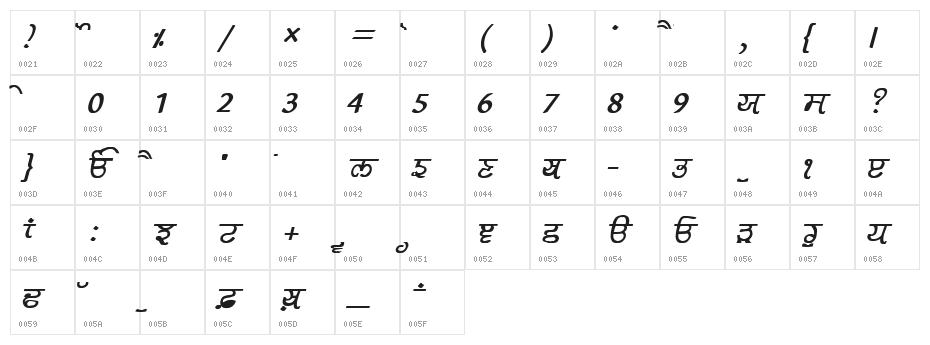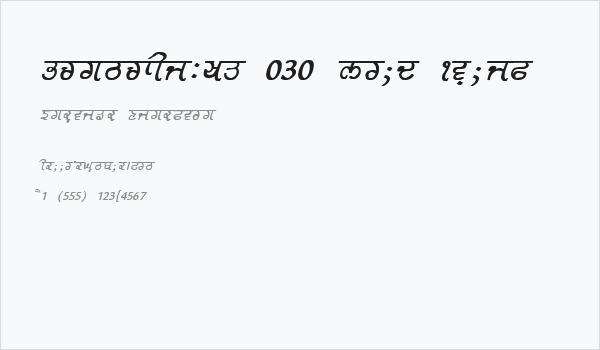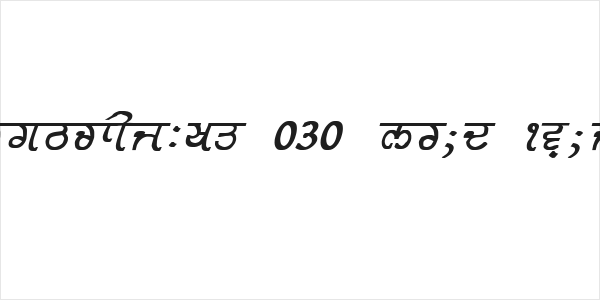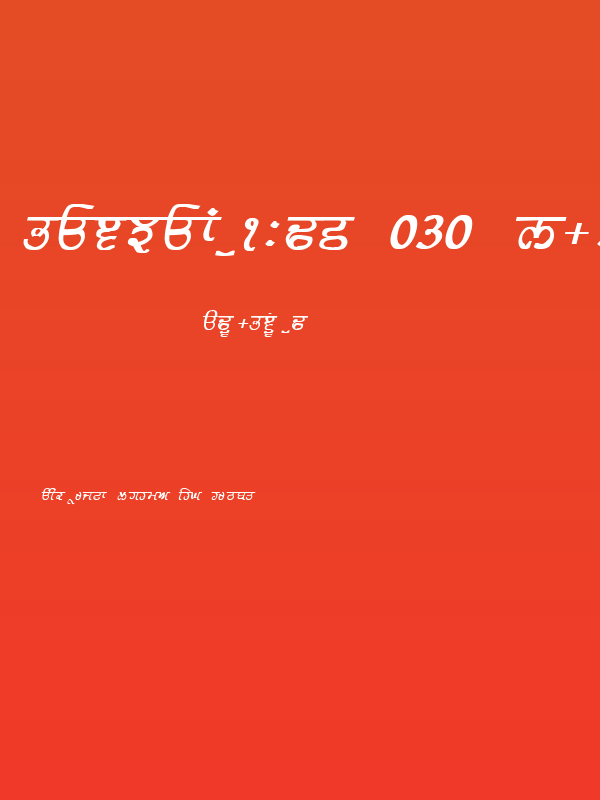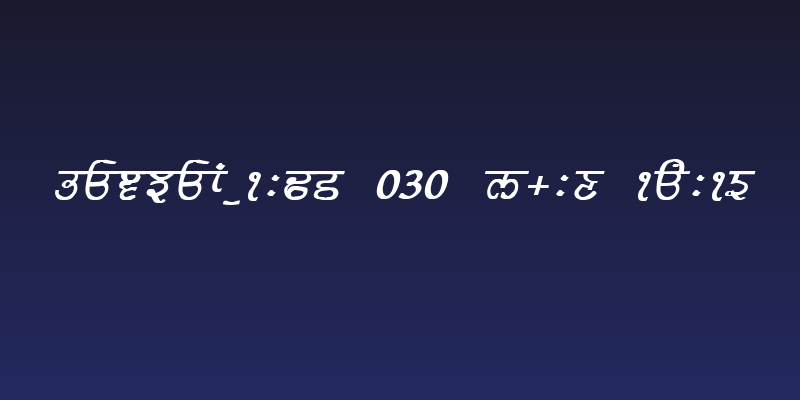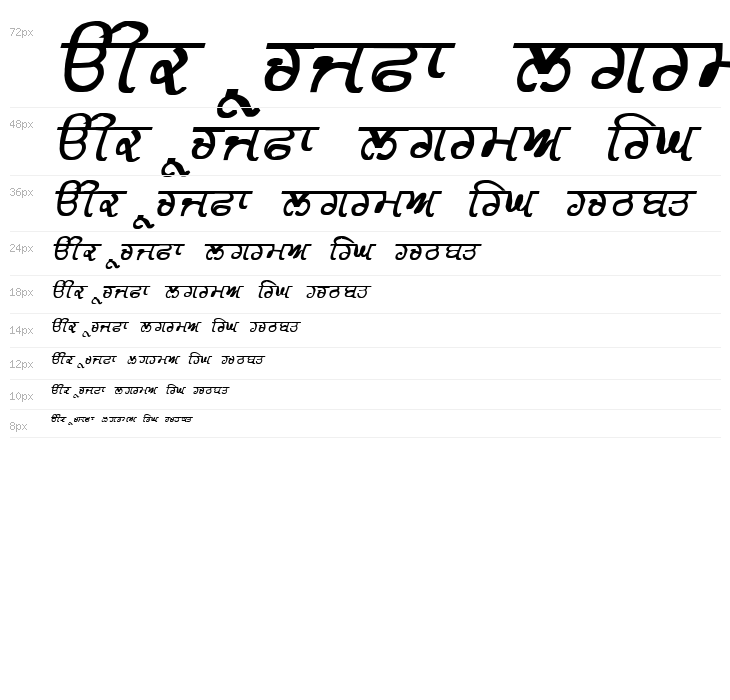
GurmukhiLys 030 Bold Italic Font
GurmukhiLys 030 Bold Italic Description
This font features a bold and italicized style with a distinct calligraphic flair, characteristic of the Gurmukhi script. The strokes are thick and expressive, providing a strong visual impact. The characters are well-defined, with a slight slant that adds a dynamic and elegant touch. The numerals and special characters maintain the same boldness, ensuring consistency across different uses. The overall appearance is both traditional and modern, making it suitable for a variety of applications.
| Use Case | Headlines, Logos, Artistic projects |
| Proposed Projects | Ideal for cultural publications, artistic projects, signage, and branding that requires a traditional yet modern Gurmukhi script. |